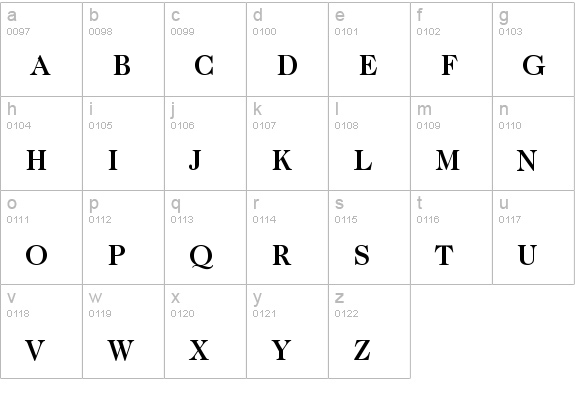
Caslon 224* Expert Book is a comfortable, highly readable variant in the Caslon typeface family \xE2\x80\x94 well suited to long-form body text, articles, and editorial content.
Caslon 224* Expert Book font is a timeless and elegant typeface that exudes sophistication and class. With its refined serifs and delicate curves, this font is perfect for adding a touch of sophistication to any design project. The clarity and readability of Caslon 224* Expert Book make it ideal for long passages of text, such as editorial content, books, and magazines. What sets Caslon 224* Expert Book apart is that it is freely available to download at FontsMarket.com. This means that you can easily incorporate this beautiful font into your projects without any cost, making it a valuable resource for designers and creators looking to elevate their work with a touch of elegance. Whether you're working on a print publication, website design, or branding project, Caslon 224* Expert Book font will help you achieve a polished and refined look. Download it for free today and elevate your designs with the timeless beauty of Caslon 224* Expert Book font.